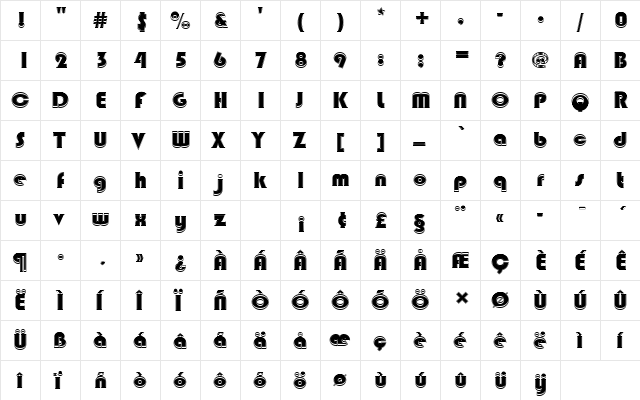
BlippoBlaDIn1 Regular
Design Context for BlippoBlaDIn1 Typeface
BlippoBlaDIn1 is a composed and adaptable typeface that performs quietly and consistently across a wide range of design contexts.
Pro Tip: Use BlippoBlaDIn1 in both headline and body roles to test its range before committing to a single application.